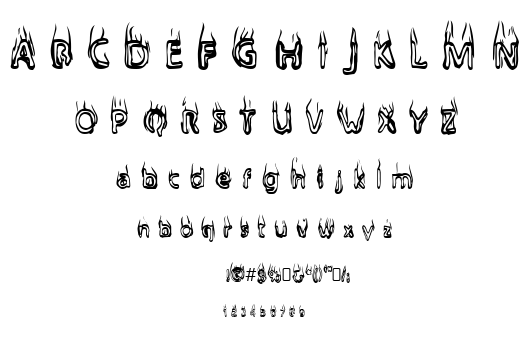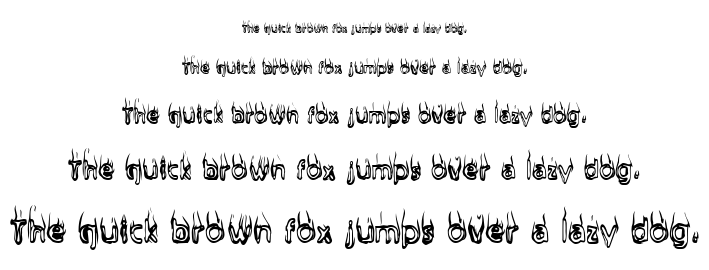
Bailey’s Car is a fiery headline font. While using a flaming font to accentuate the idea of “hot” is in inarguably poor taste, sometimes that’s exactly what’s needed. Don’t forget to read the files inside the zip for details. Updated in 2012.